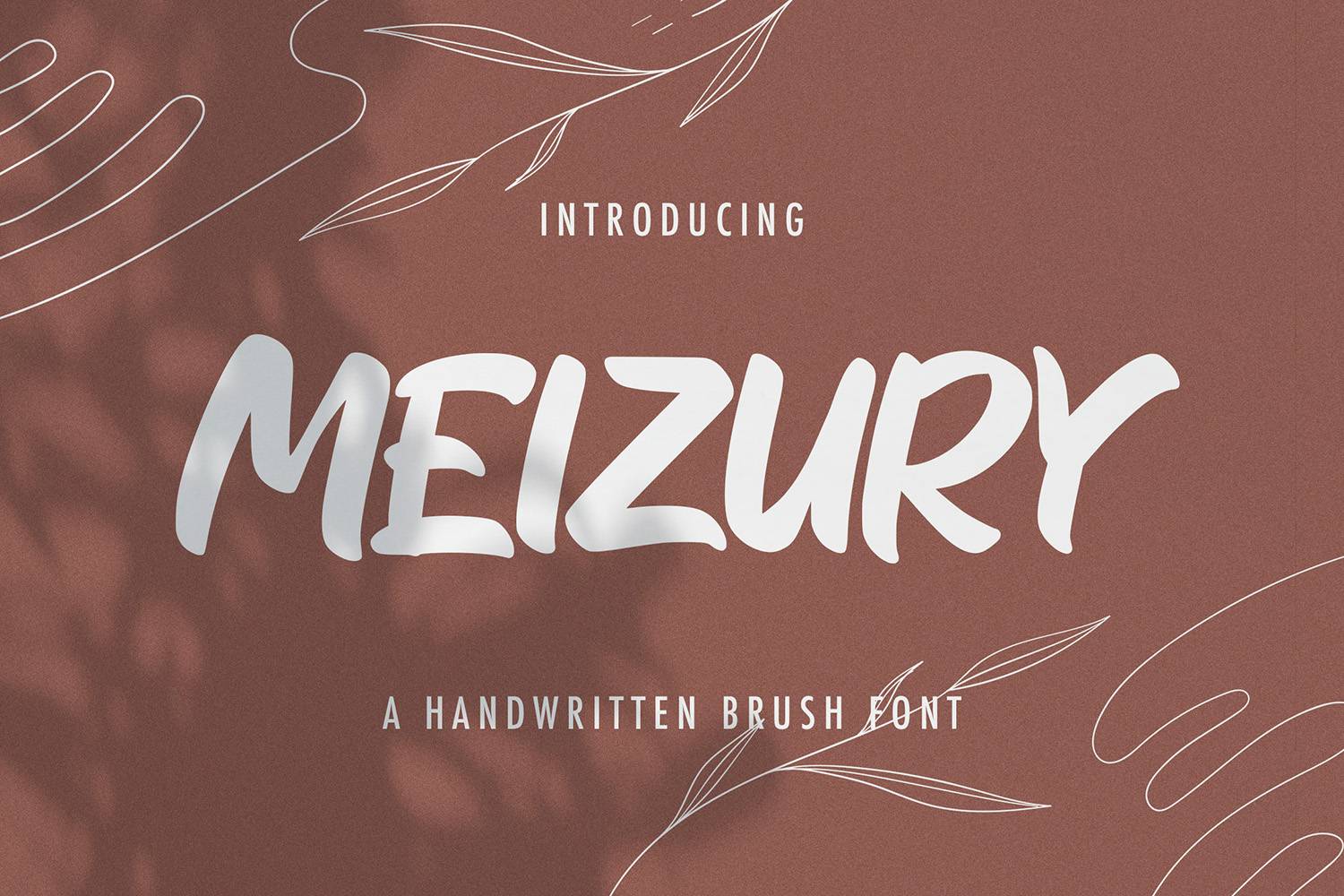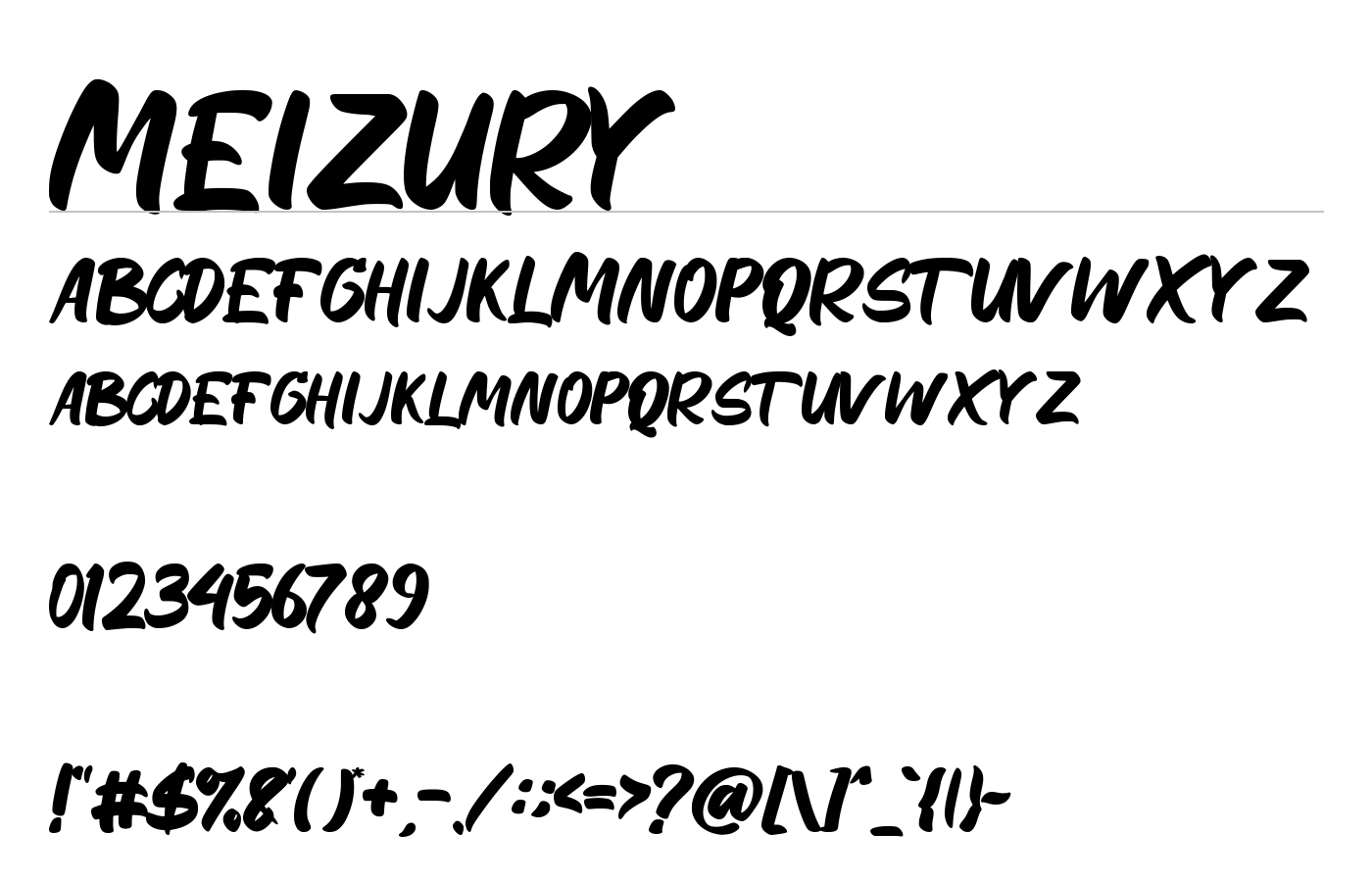
Meizury is a bold, casual script font with a hand-painted feel, featuring smooth, rounded strokes and a lively, informal character. Its energetic style and clear readability make it an excellent choice for branding, packaging, headlines, or any design that seeks a friendly, approachable vibe with a touch of personality. This font works well where you want to convey warmth and creativity without sacrificing impact.
Meizury Font
About Meizury Font